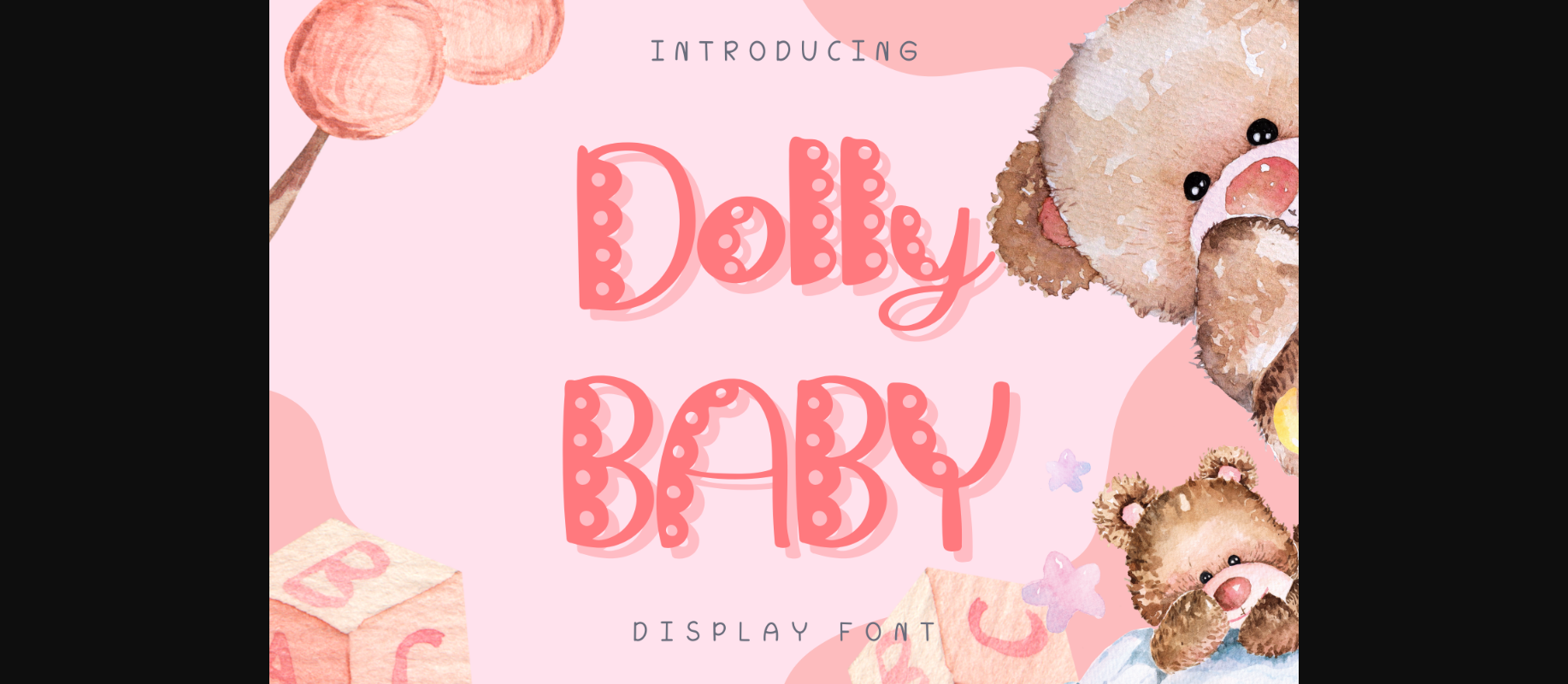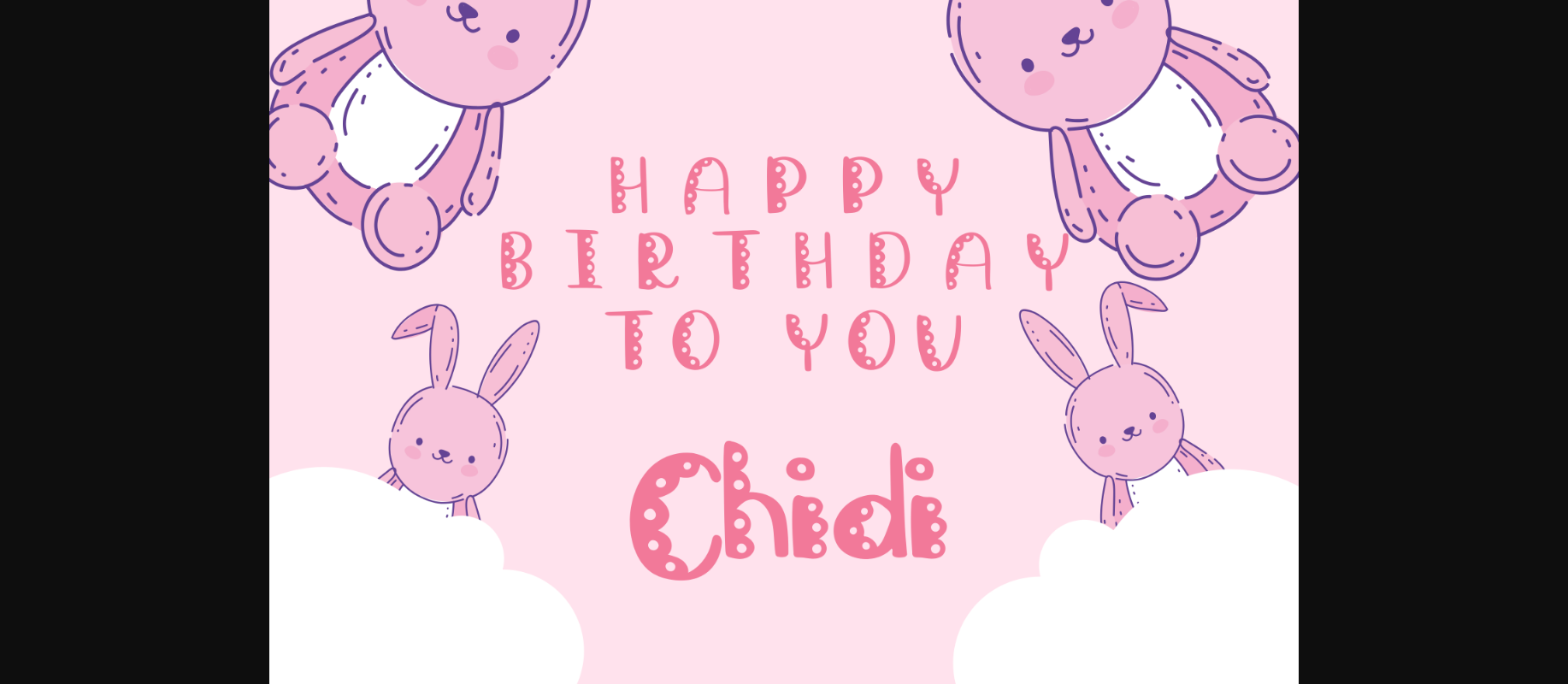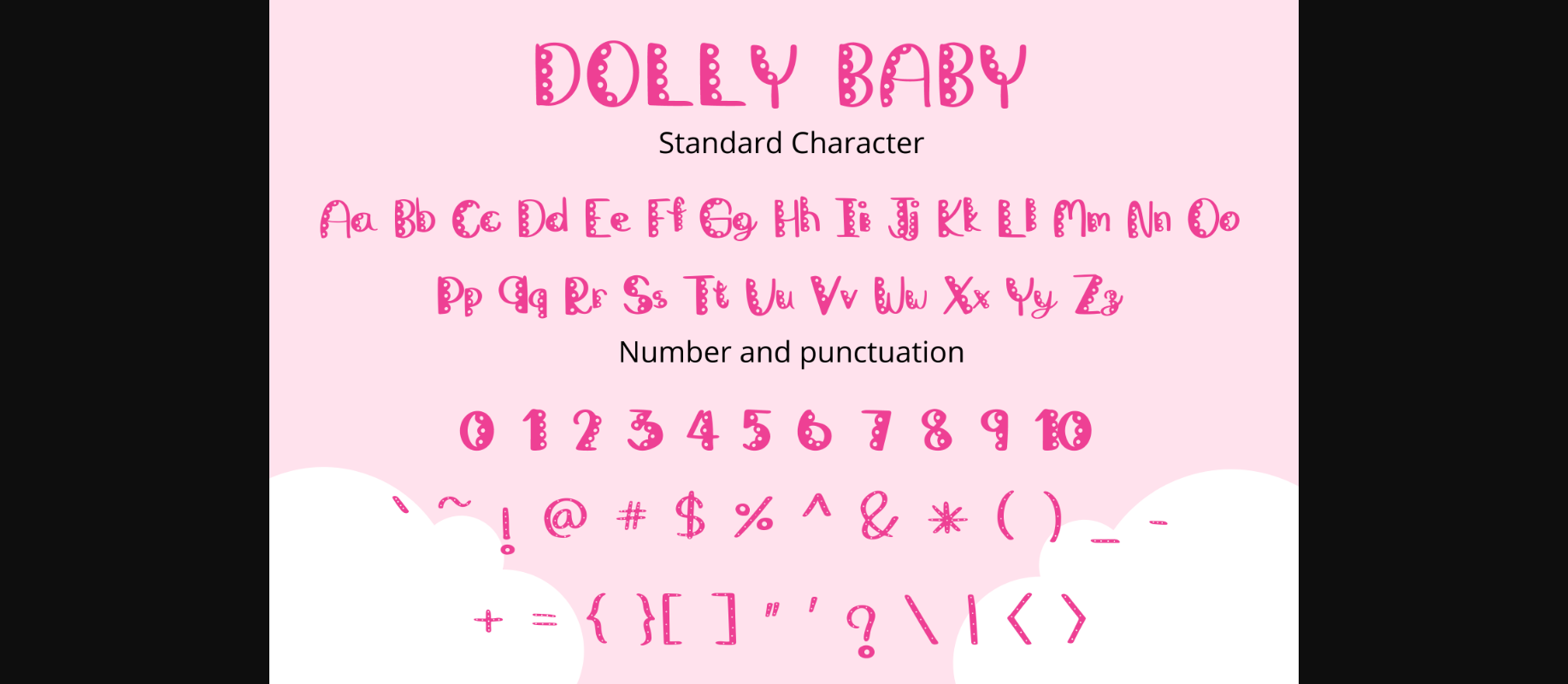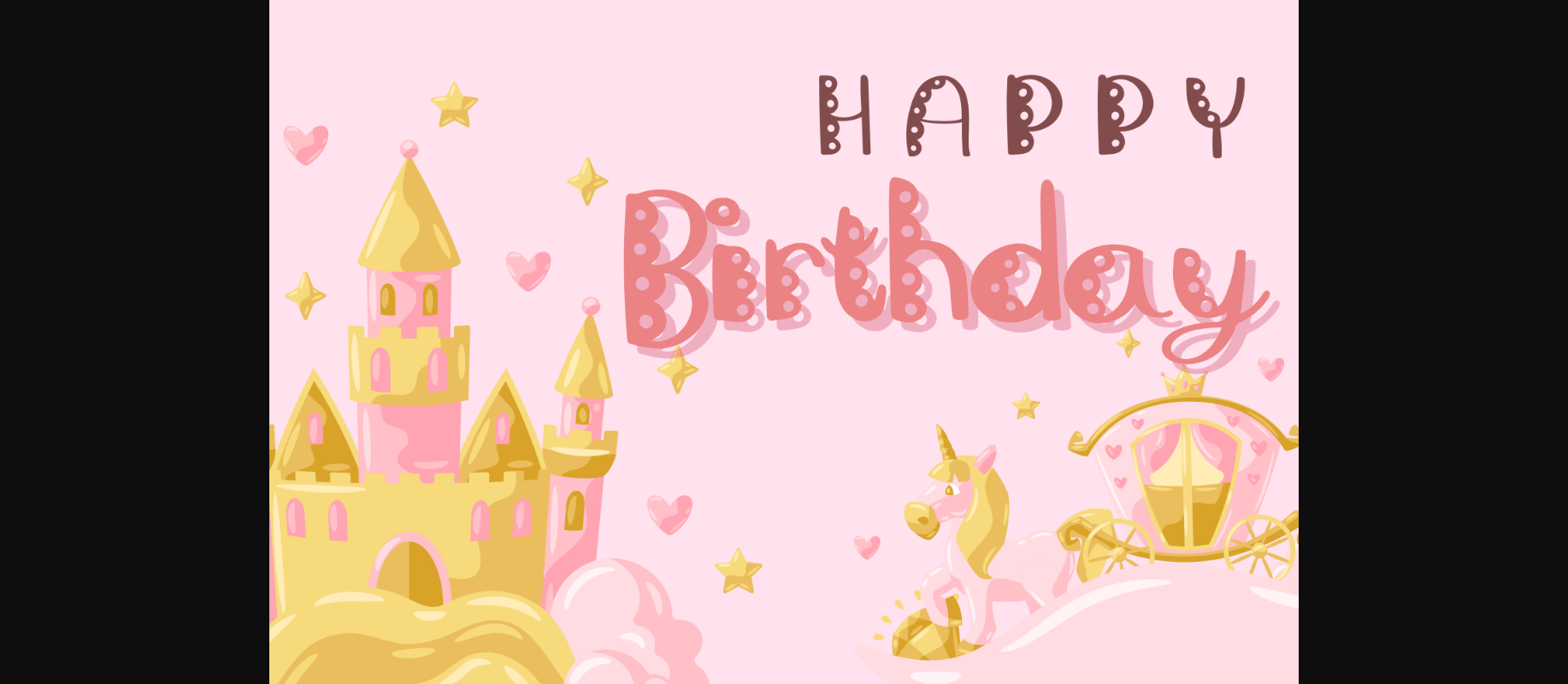
Dolly Baby Style Font
About Dolly Baby Style Font
Dolly Baby Style is a whimsical and stylish font. It can easily be matched to an incredibly large set of projects, so add it to your creative ideas and notice how it makes them stand out!